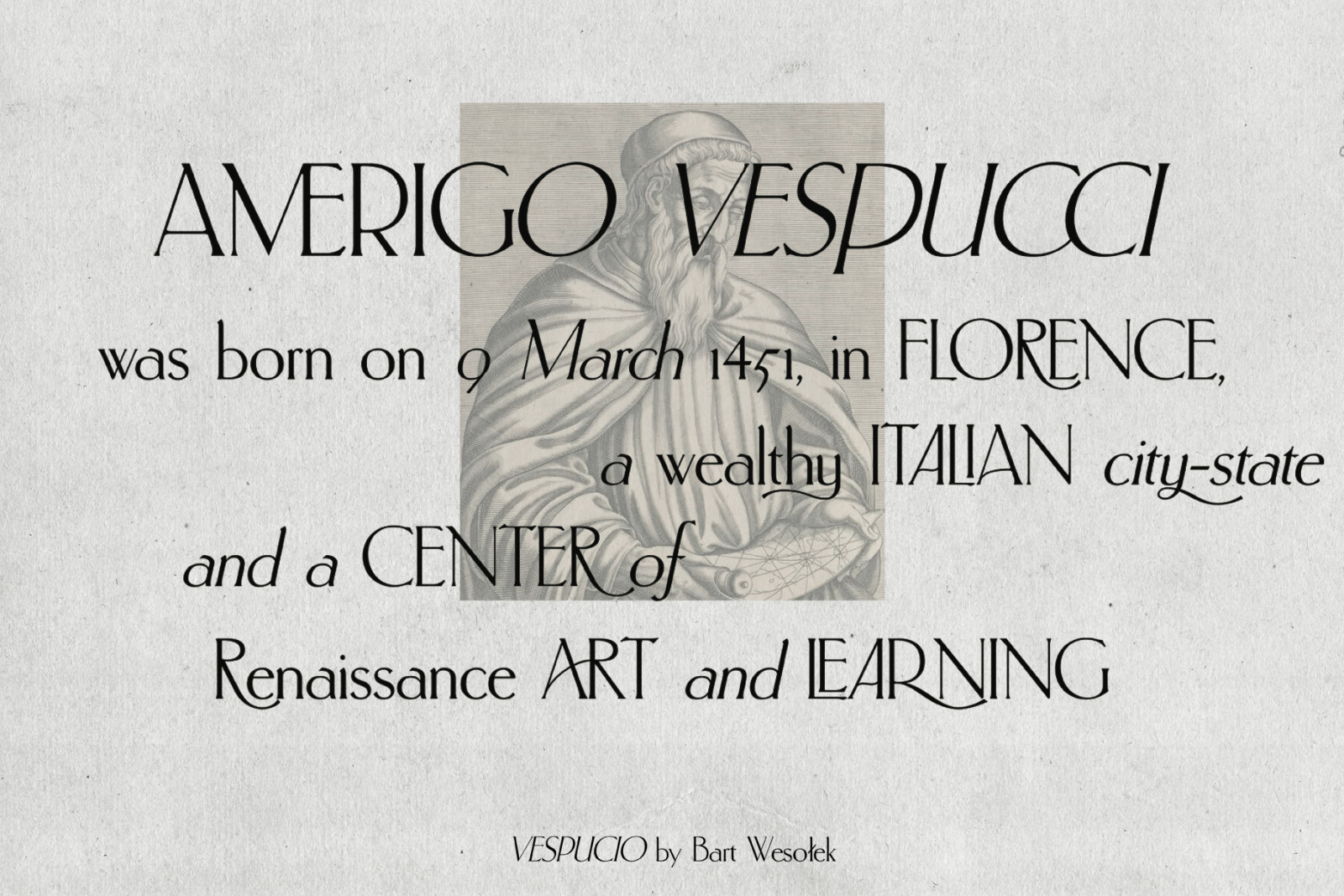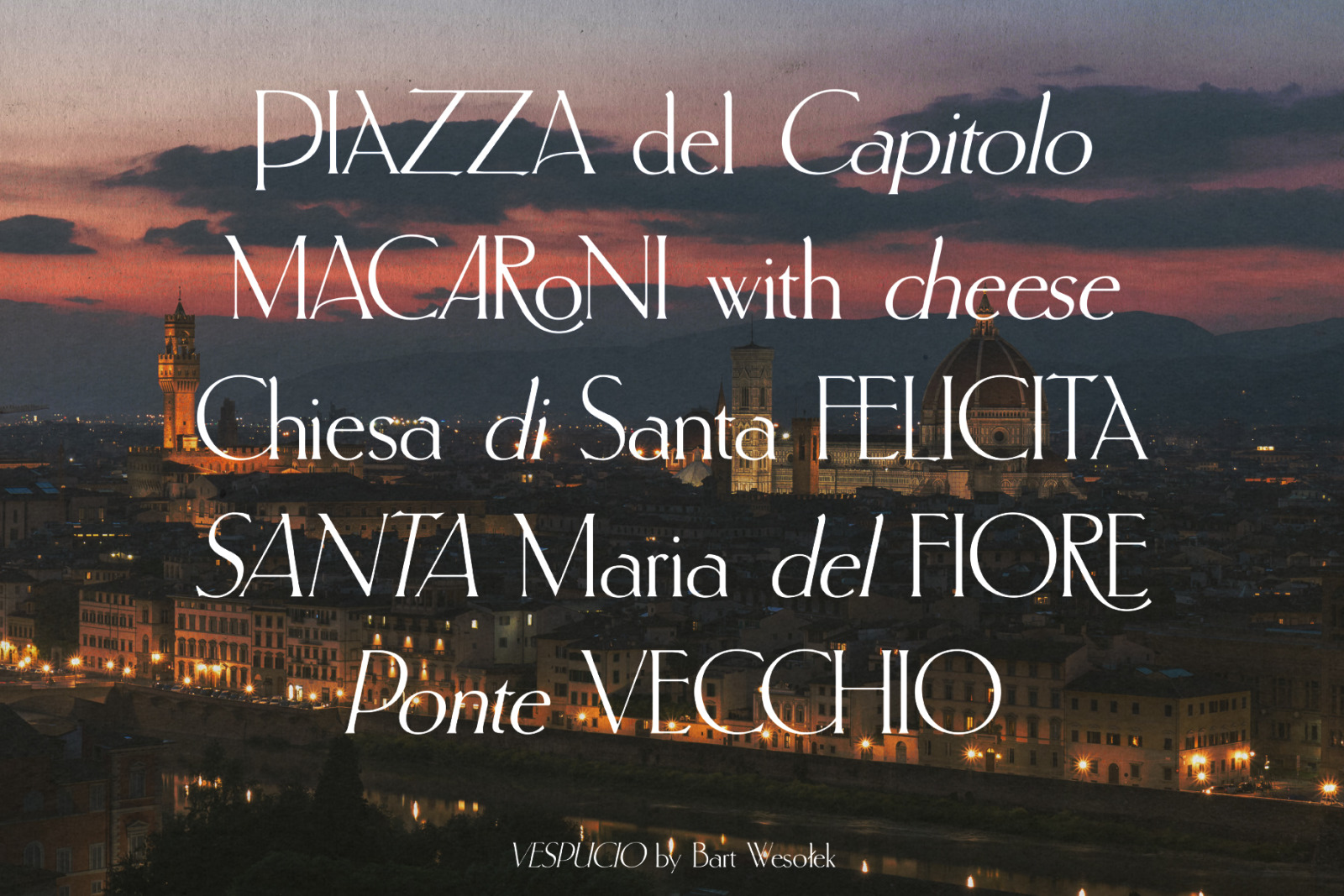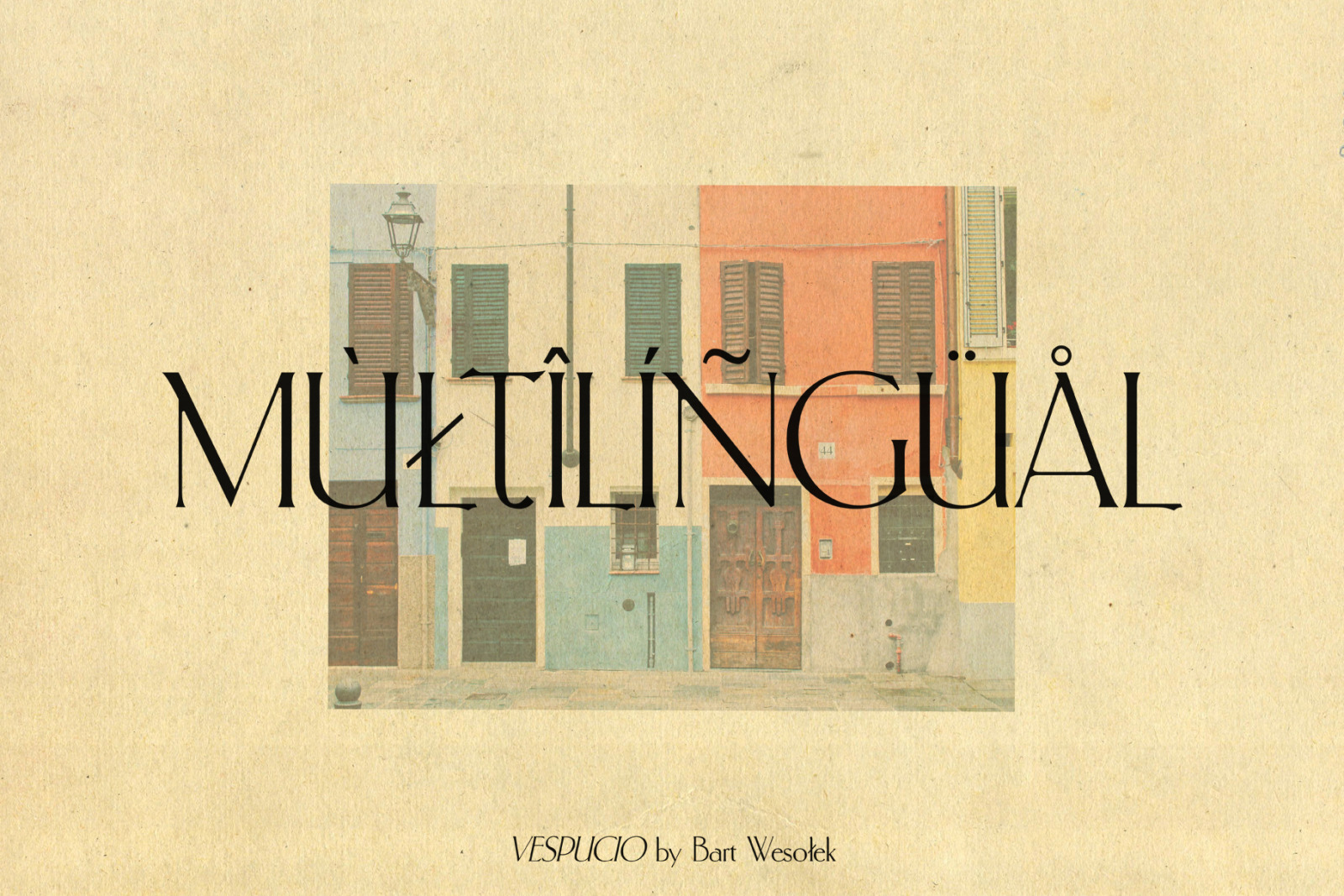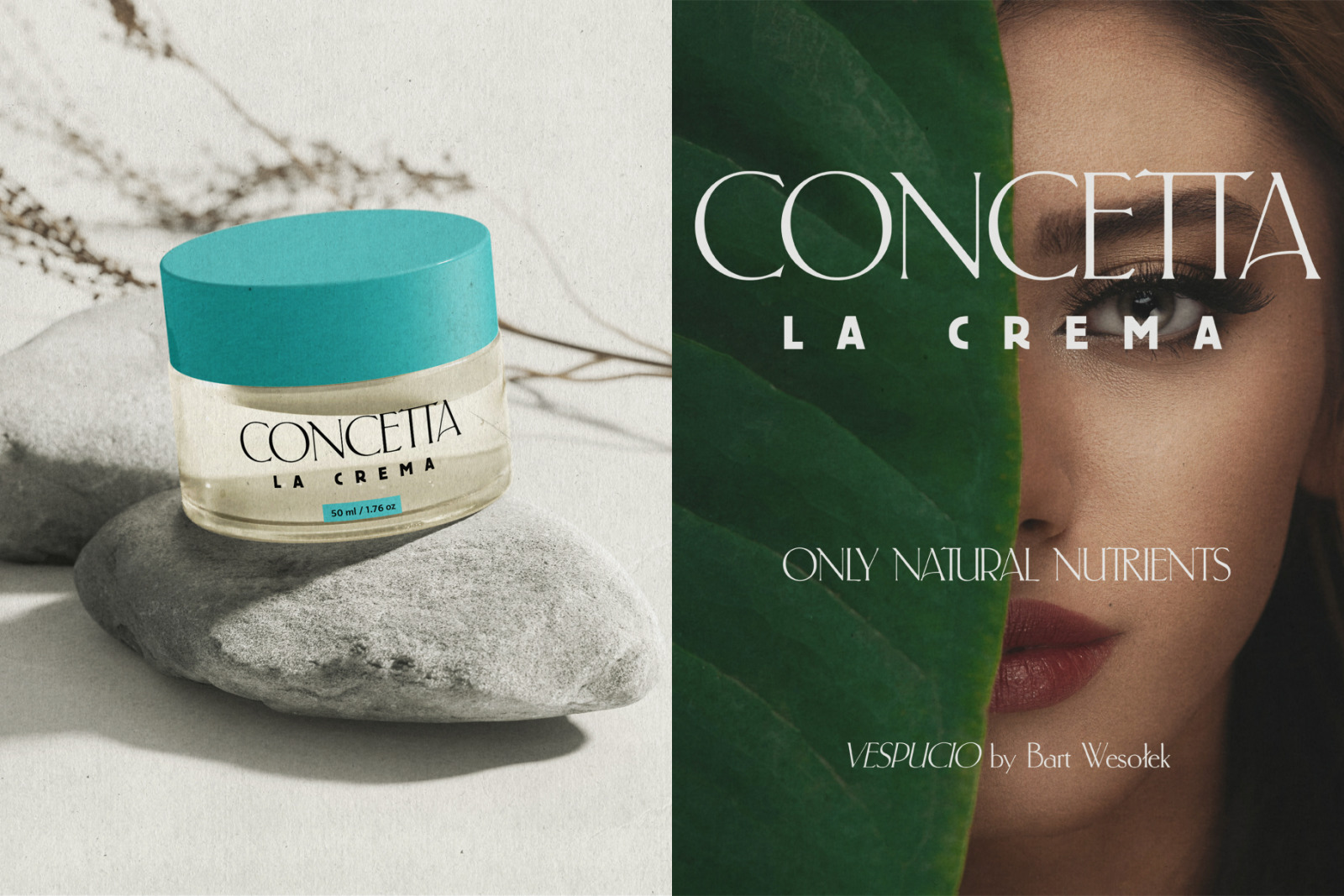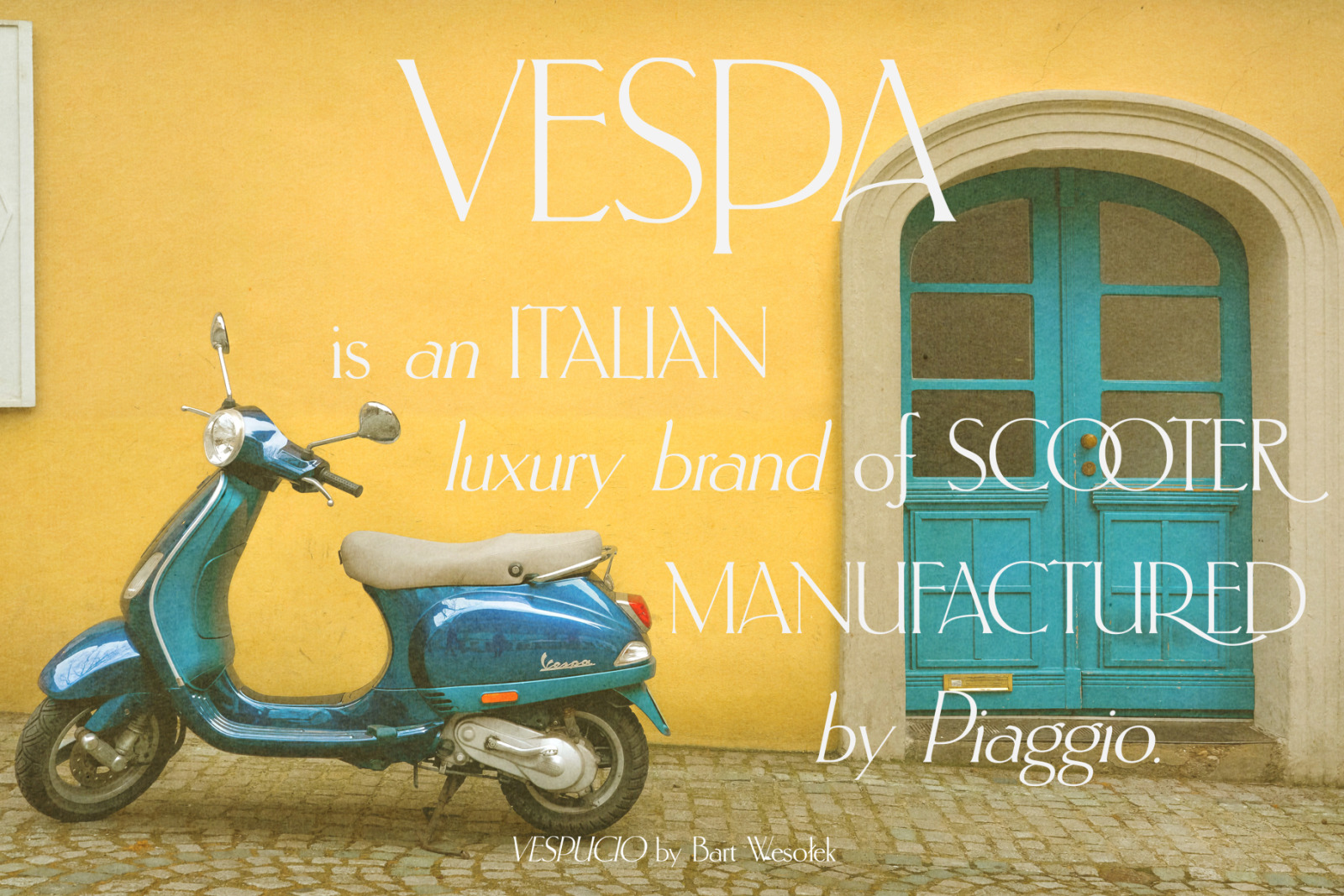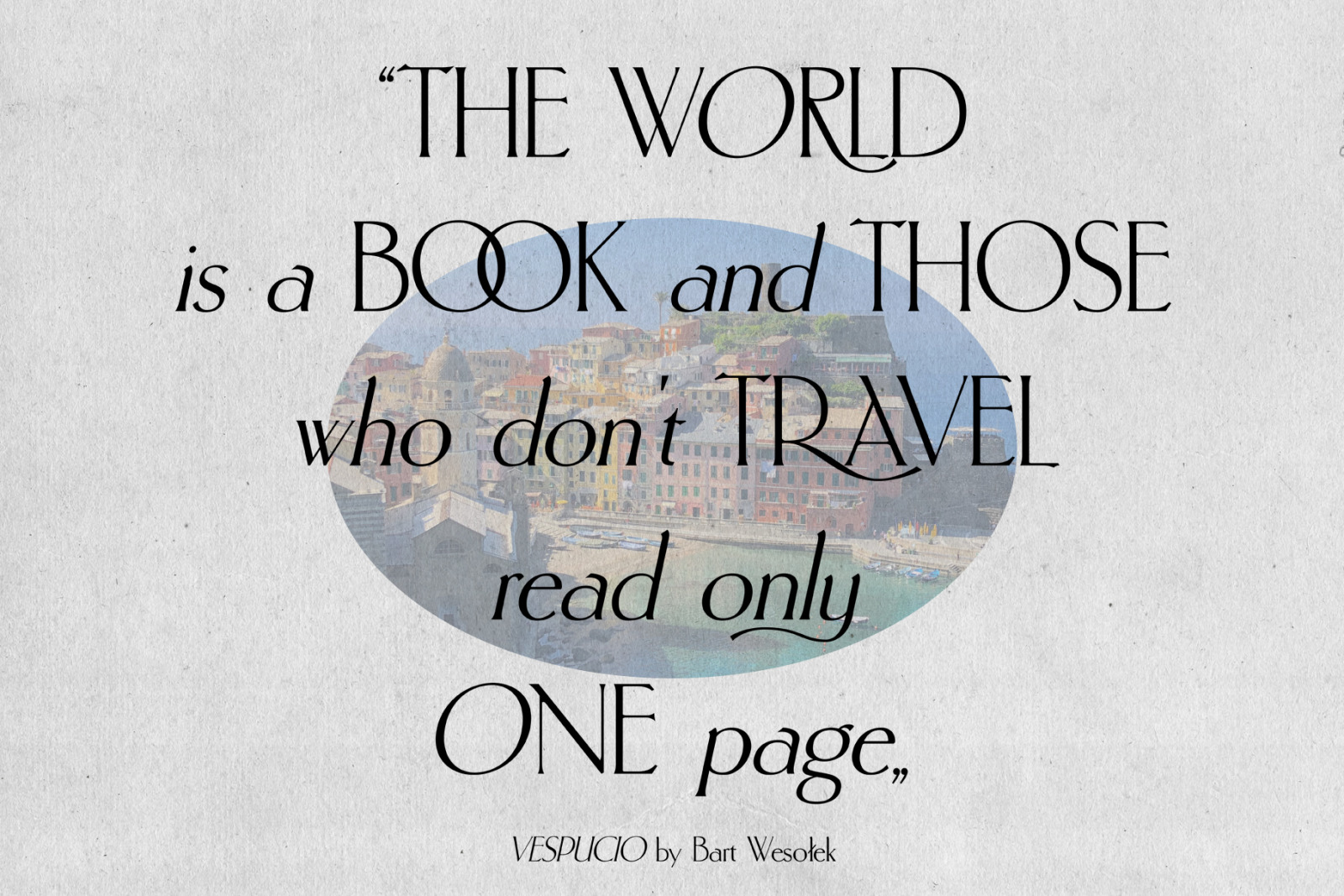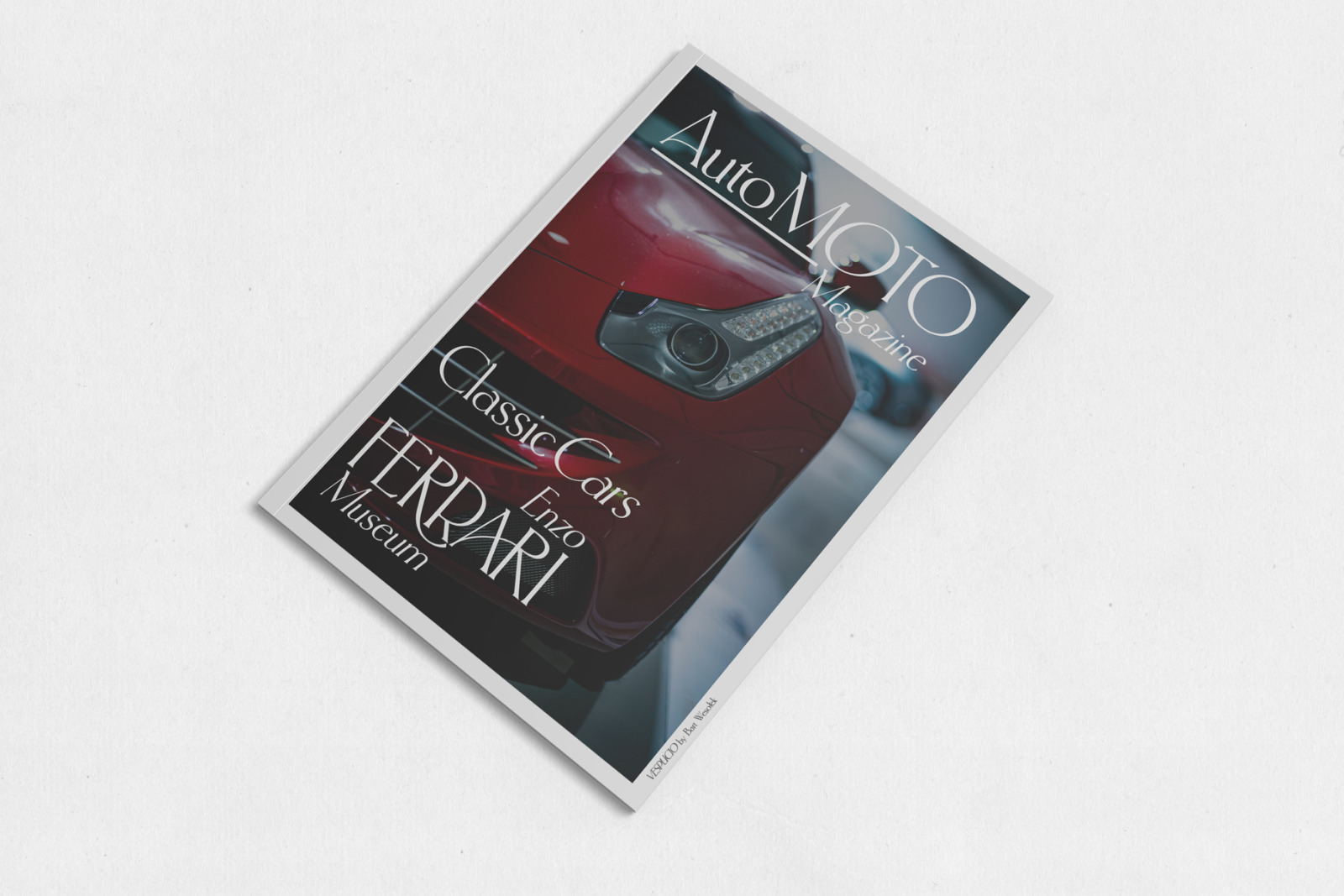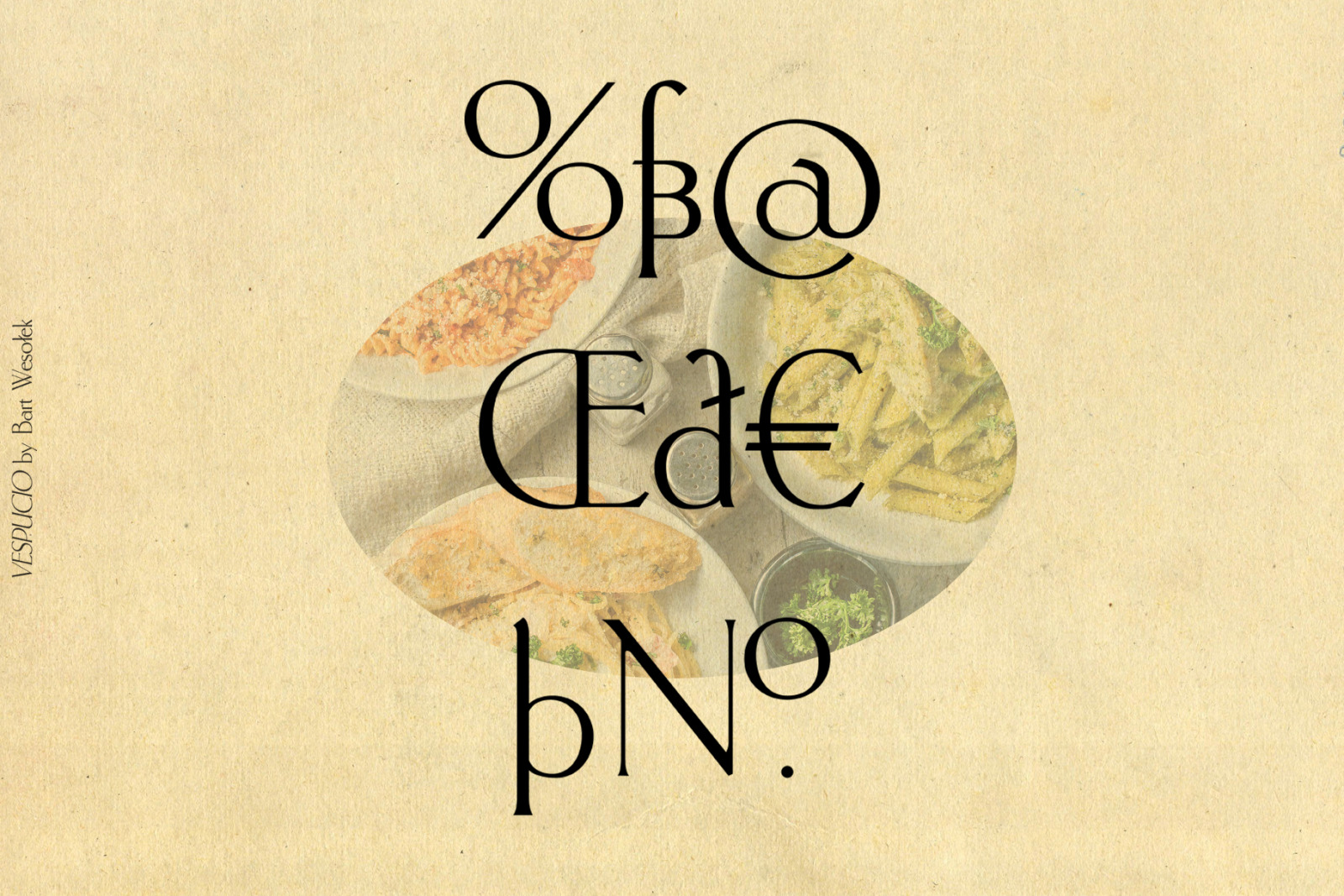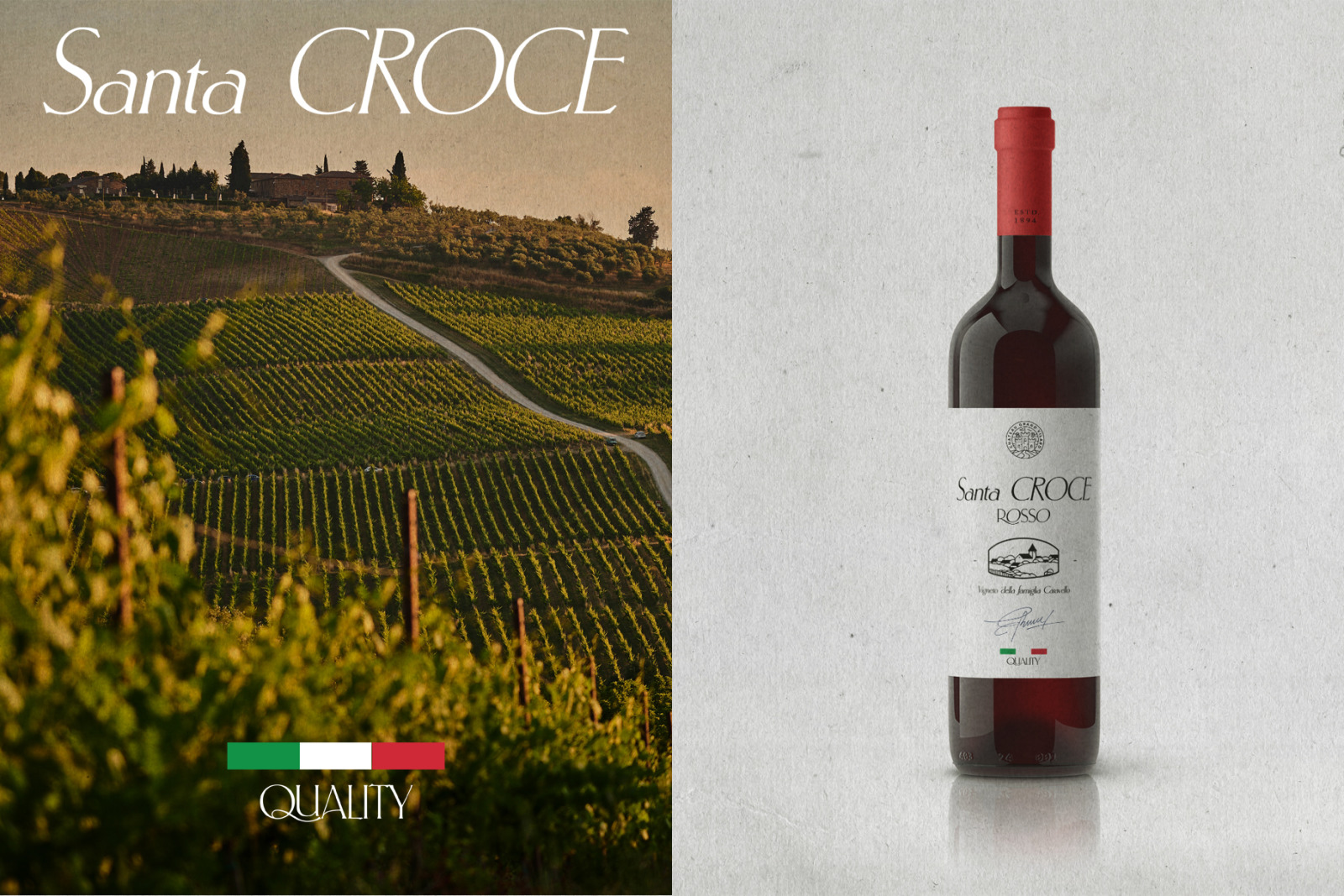
Vespucio Font
Vespucio is a modern elegant serif font. Vespucio is inspired by traditional classic serifs and modern elegant styles. Vespucio is great for text, headings, logos, brandings, socials and more. Enjoy!
Language support:
ÀÁÂÃÄÅĀĄÆ ÇĆ ÈÉÊËĘĒ ÌÍ Î Ï Ī Ð Ł ŃÑ ÒÓÔÕÖŒØ Ś ÙÚÛÜ ỲÝŶŸ Þ ß
àáâãäåāąæ çć èéêëęē ìí î ï ī ð ł ńñ òóôõöœø ś ùúûü ỳýŷÿ þ